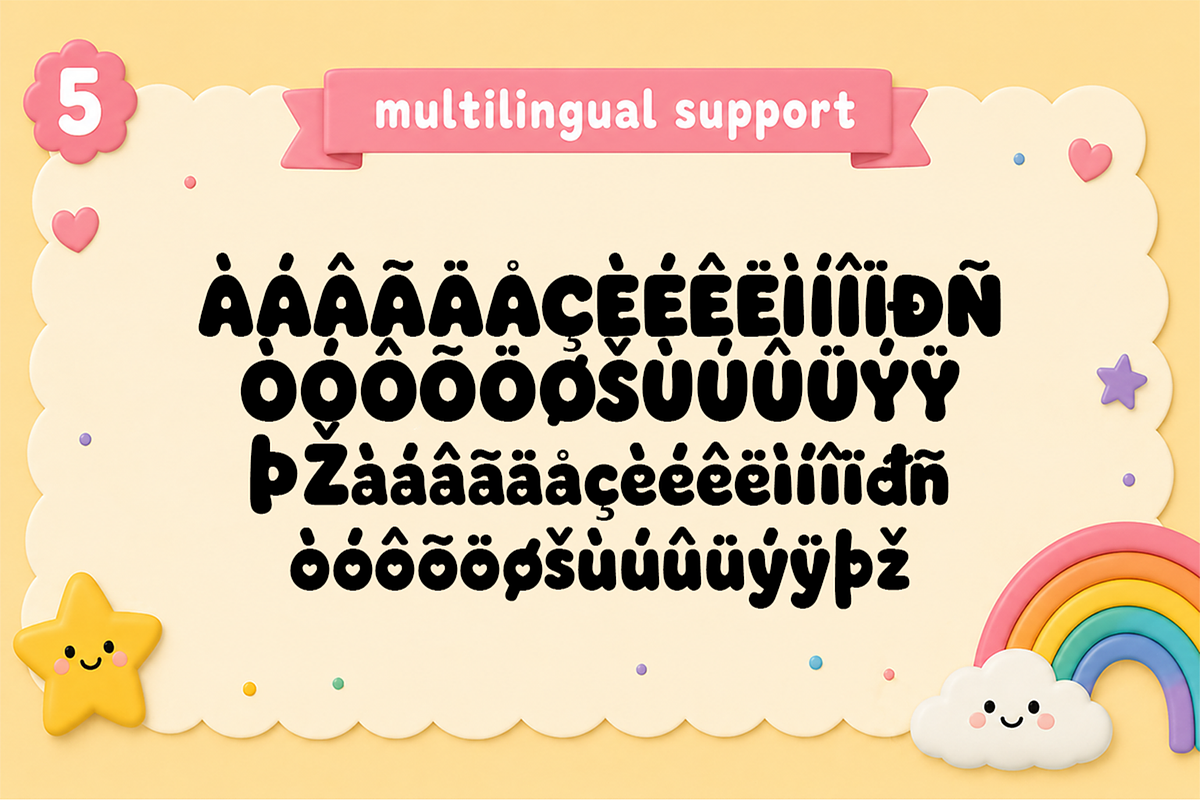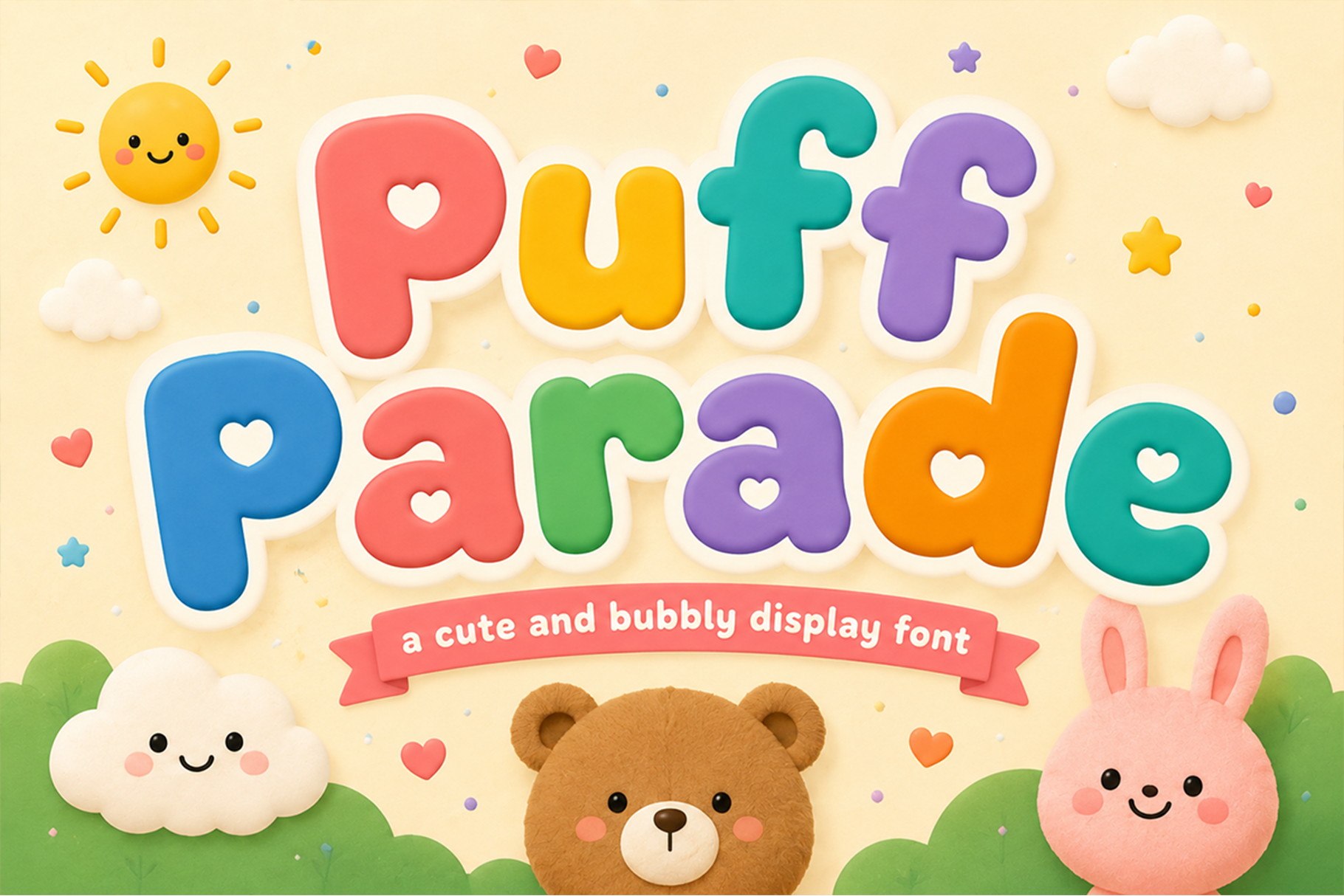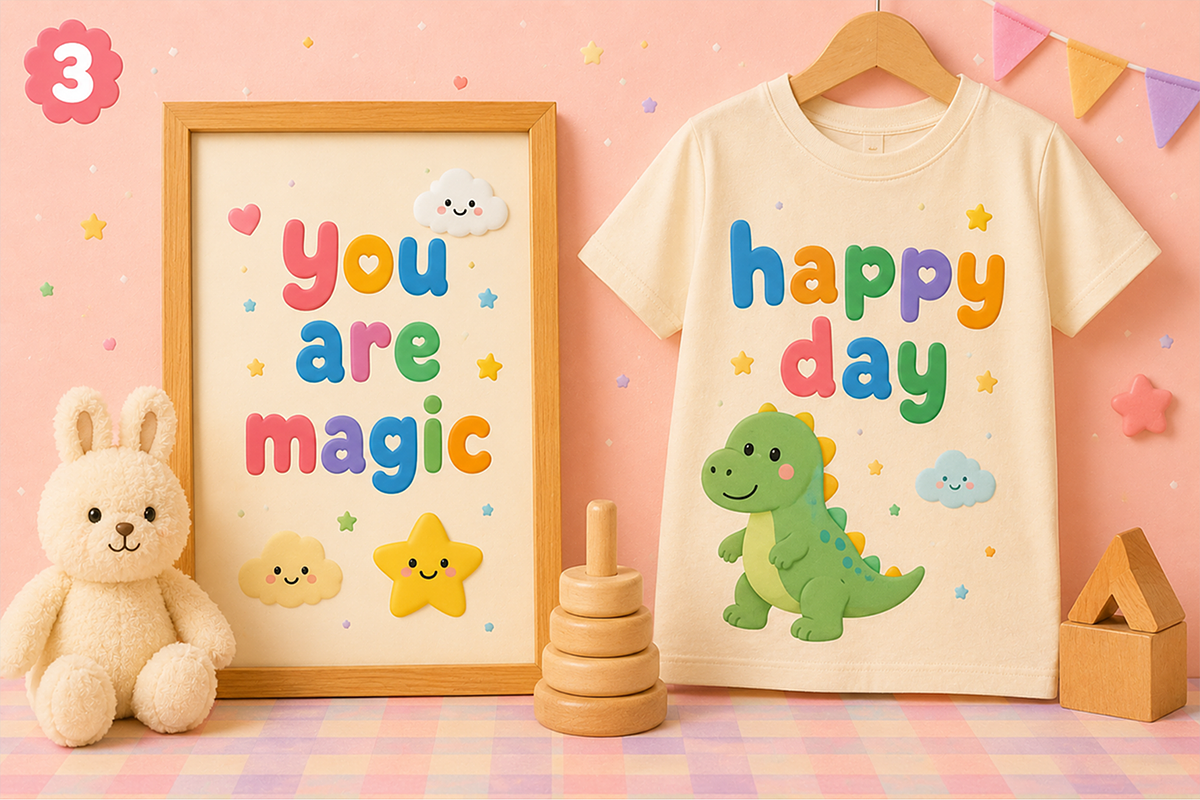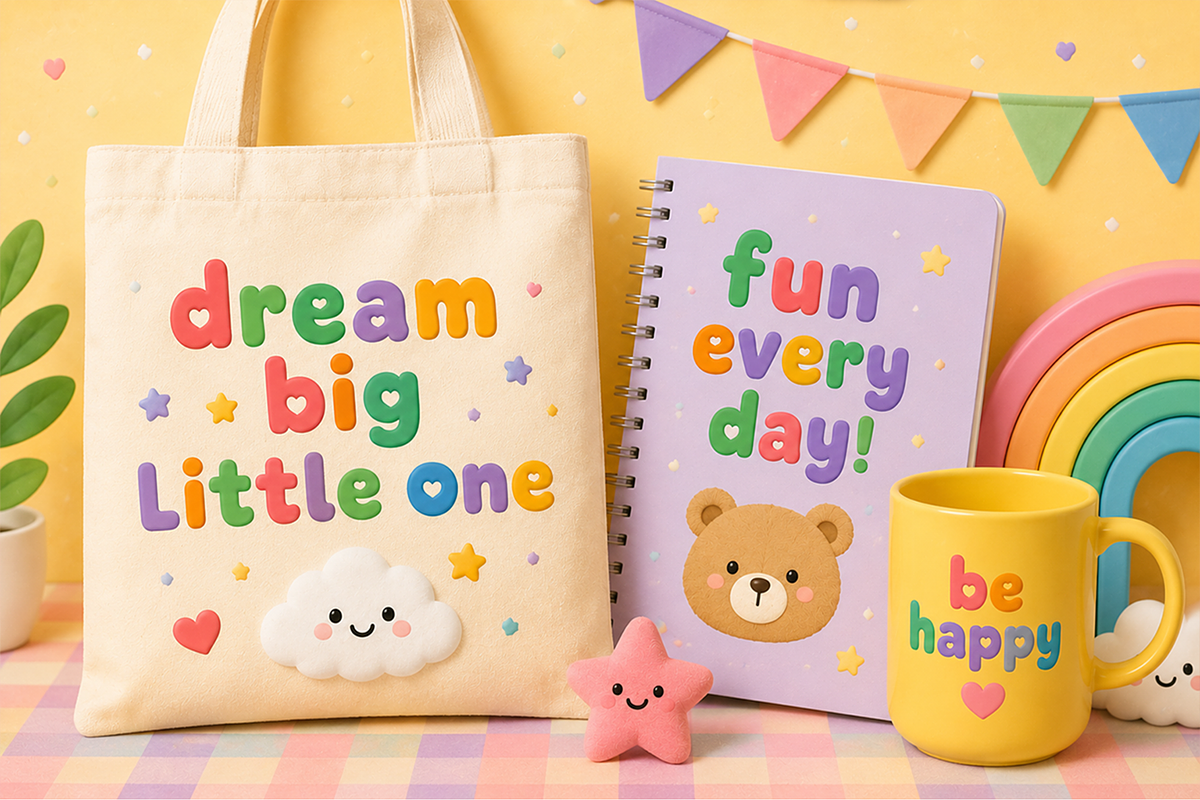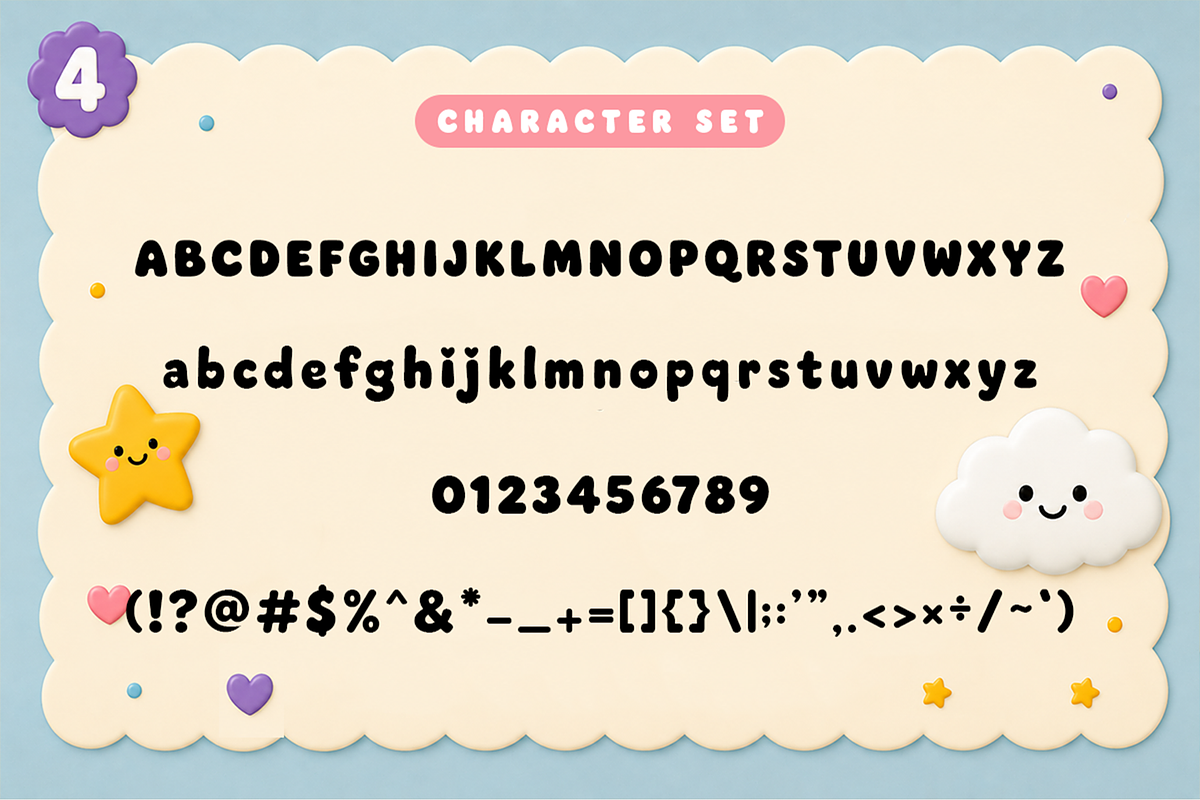
Puff Parade - Modern Kids Font
Meet Puff Parade, a modern kids font filled with playful charm, cheerful energy, and boundless imagination. Designed with fun, rounded letterforms and a friendly personality, this typeface brings a joyful and engaging feel to any project. Its whimsical style captures the spirit of childhood, making it the perfect choice for designs that aim to inspire smiles and creativity.
Carefully crafted for both style and usability, Puff Parade includes uppercase and lowercase letters, numerals, punctuation, symbols, and multilingual support. Its balanced design ensures excellent readability while maintaining a fun and expressive appearance across a variety of print and digital applications.